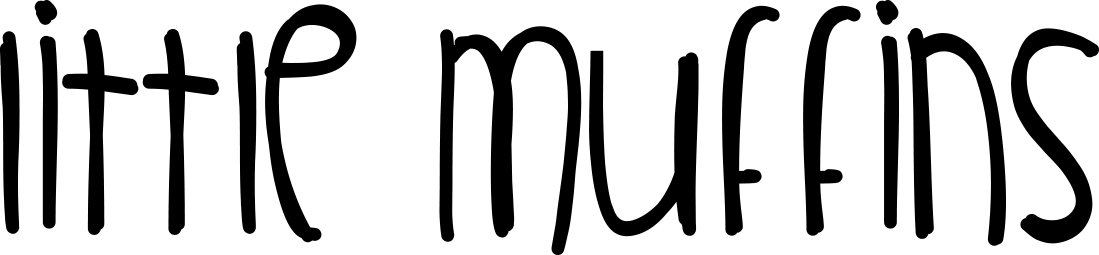
Little Muffins Font
If you want your texts to look lively, today’s script fonts can be ideal for you! This doodle font is called Little Muffins. It will give life to your texts and give a cute and handwritten feeling to your reader.
You can use this one for children’s books, product introductions and naming, cartoon and teenage movie titles, and channel banners. This font mostly has lowercase letters.